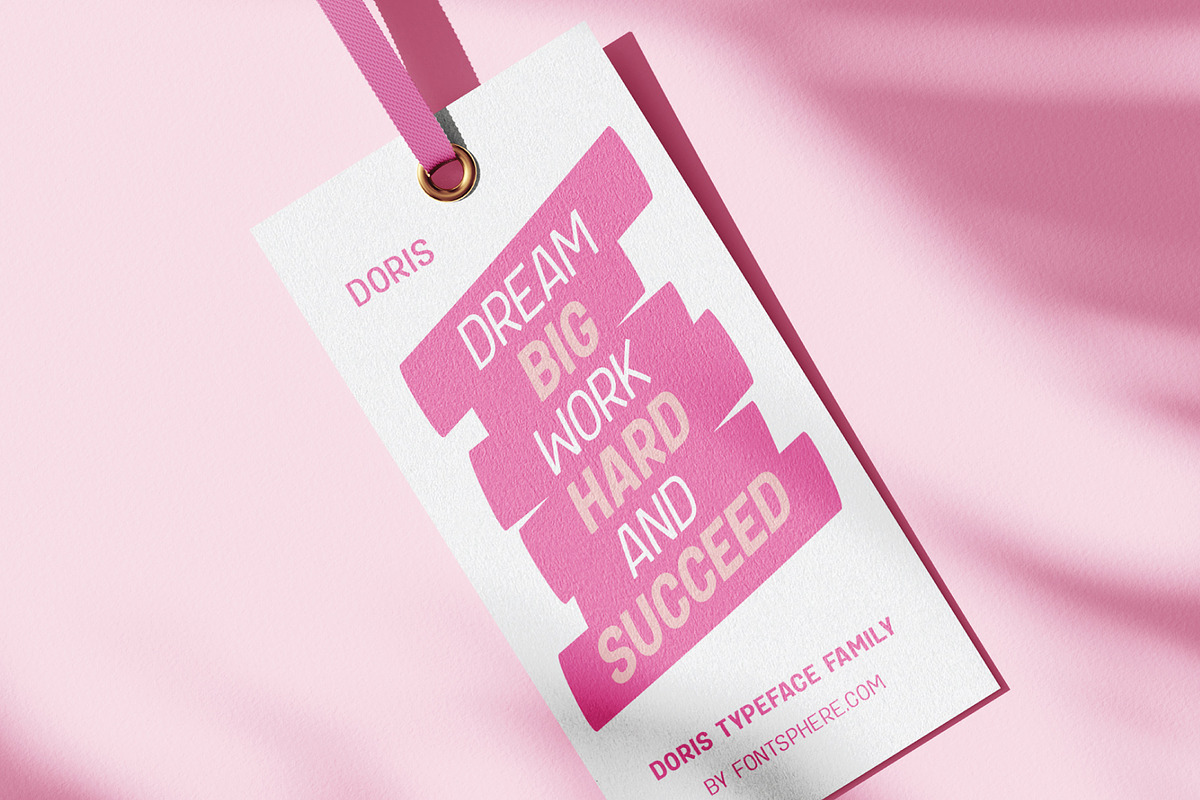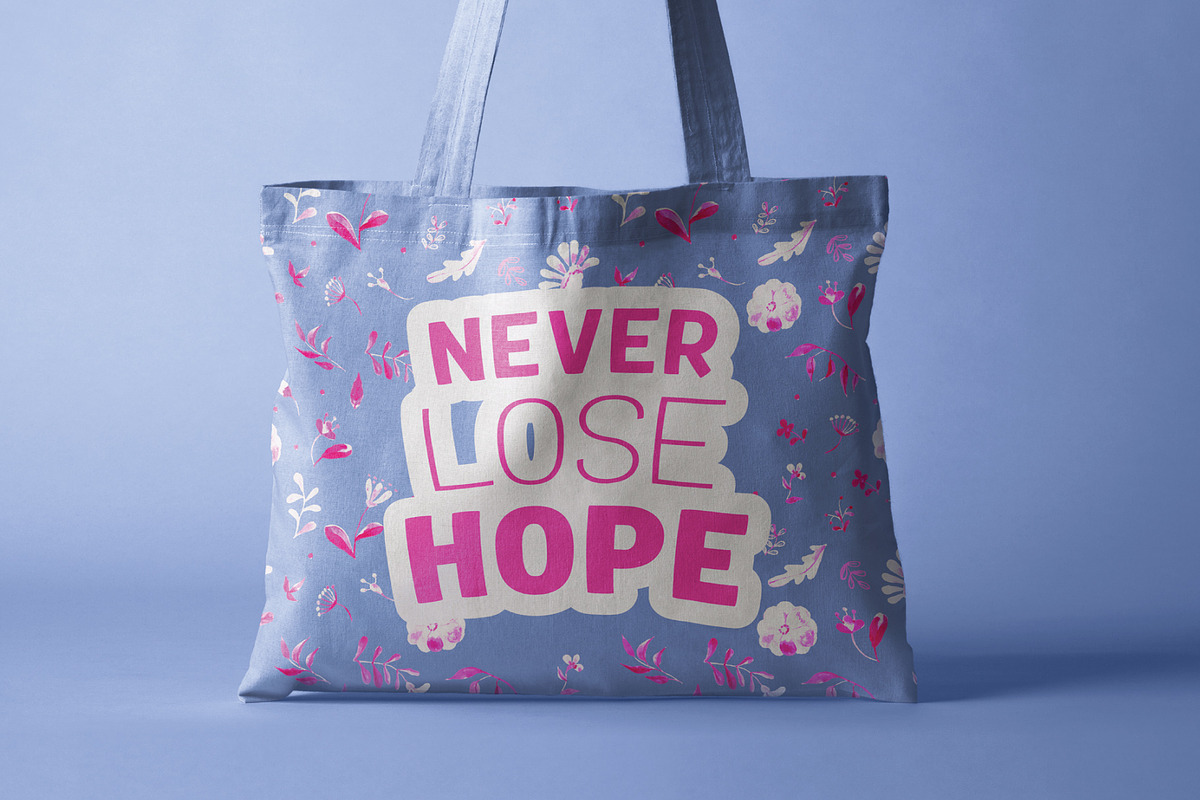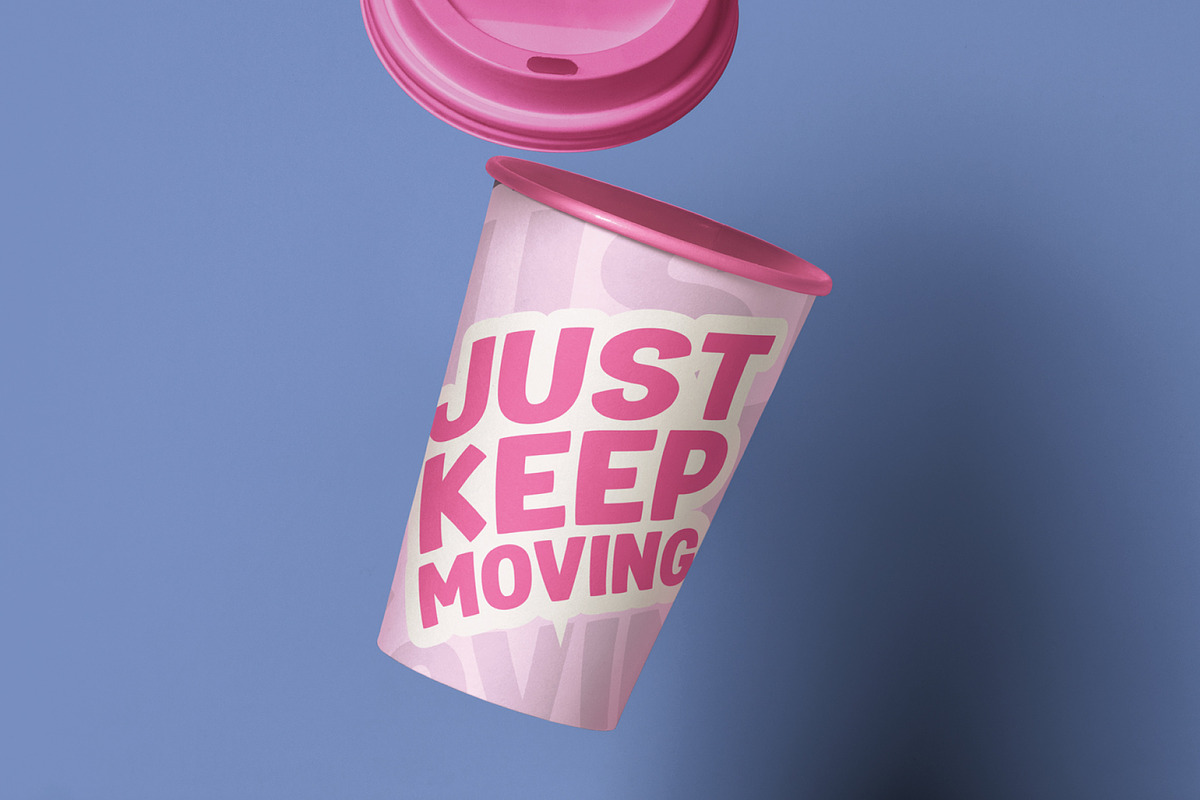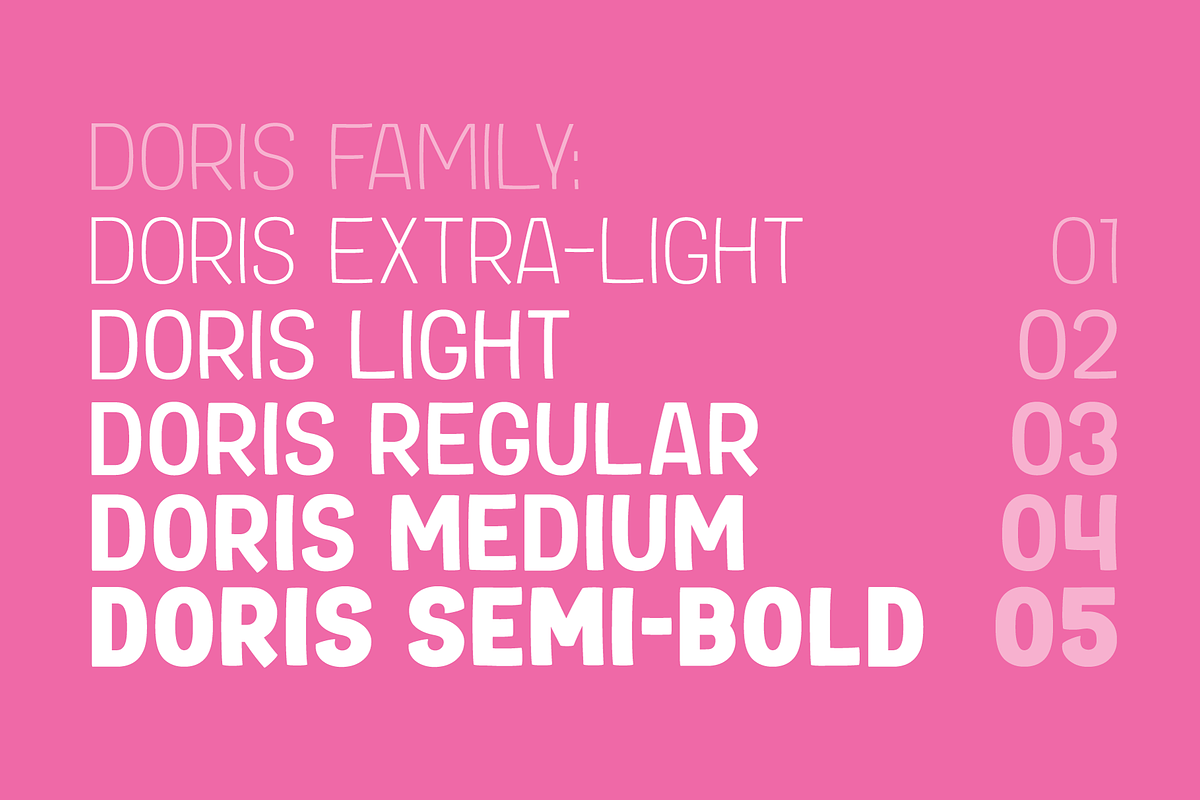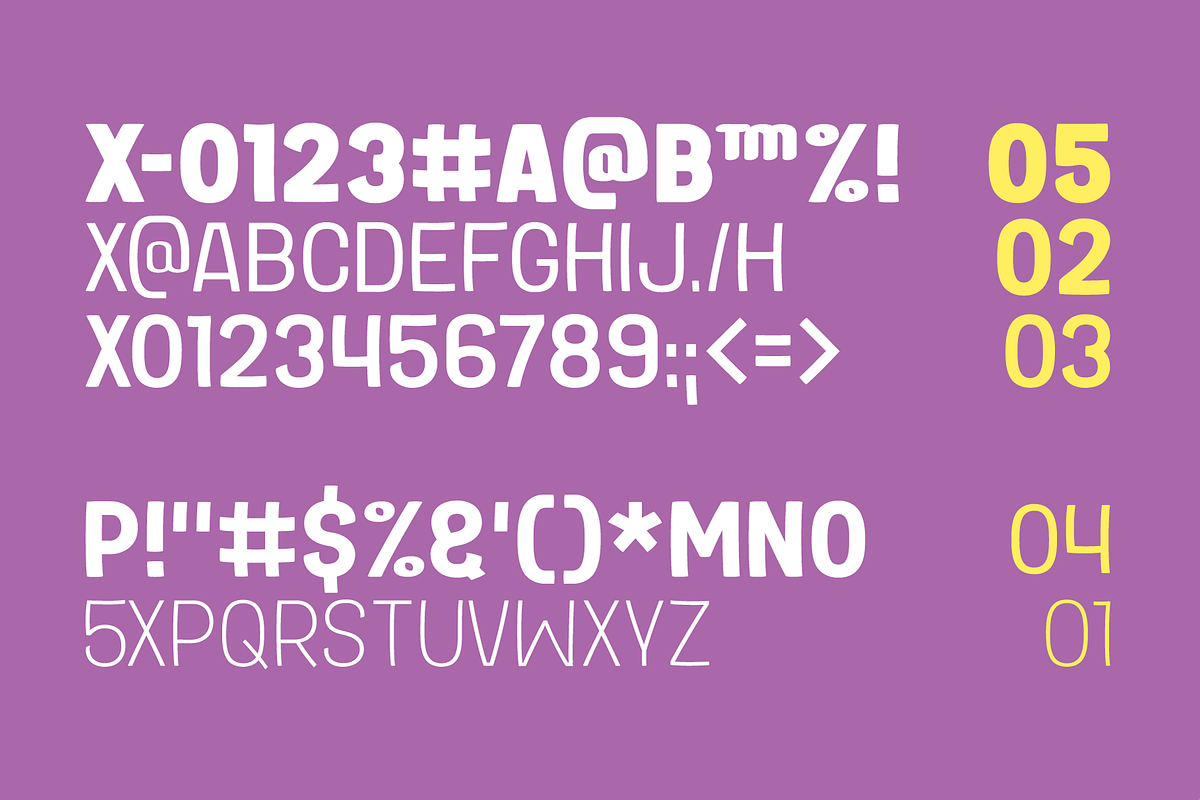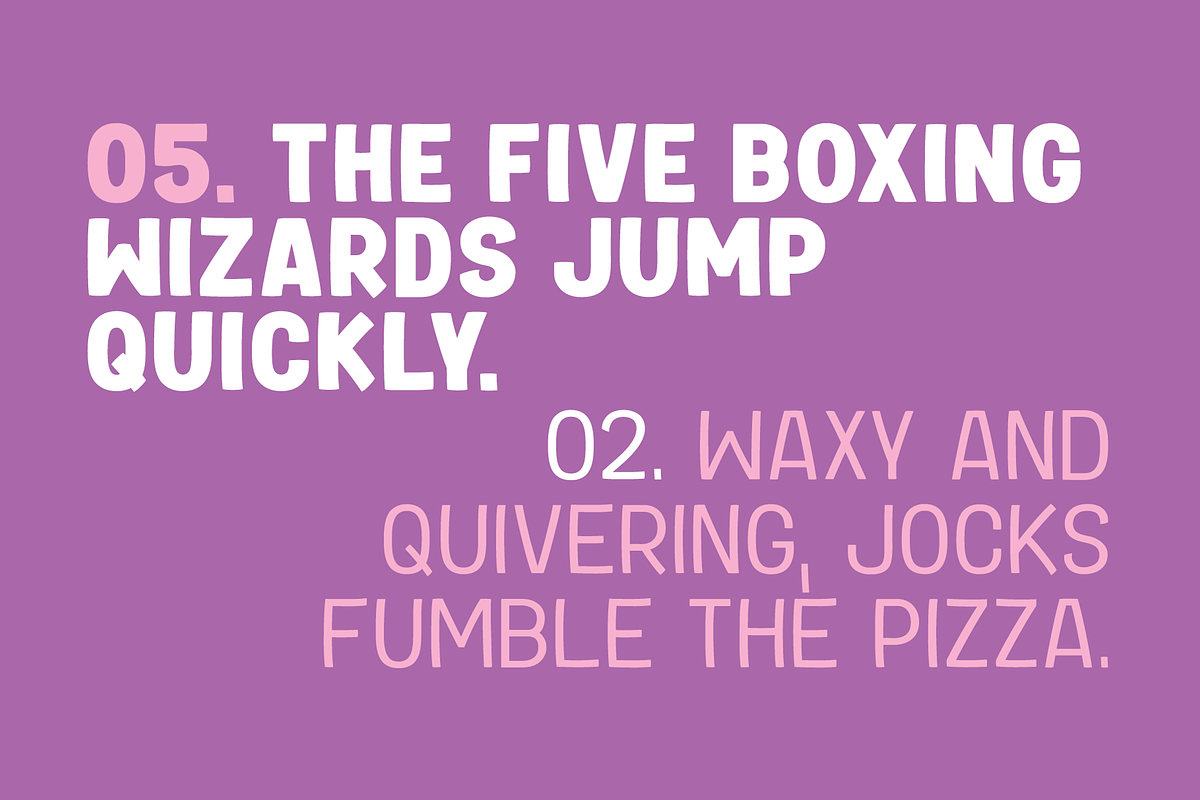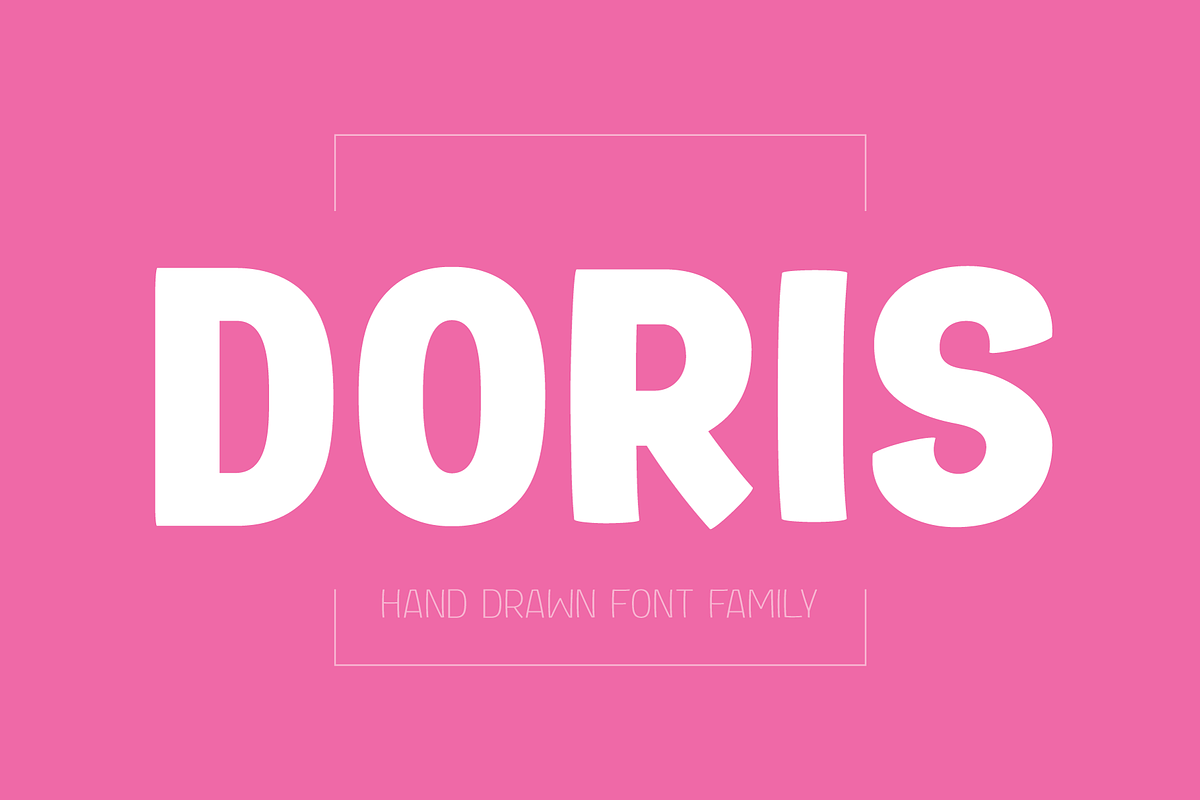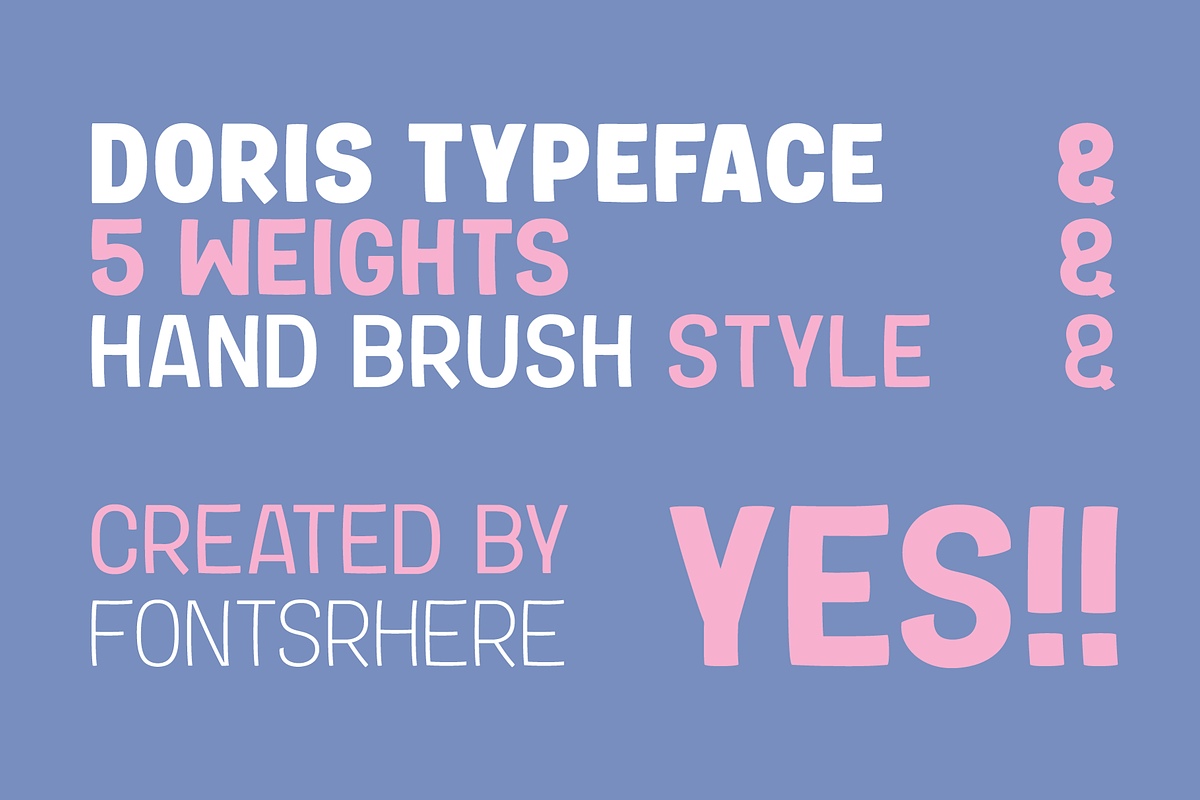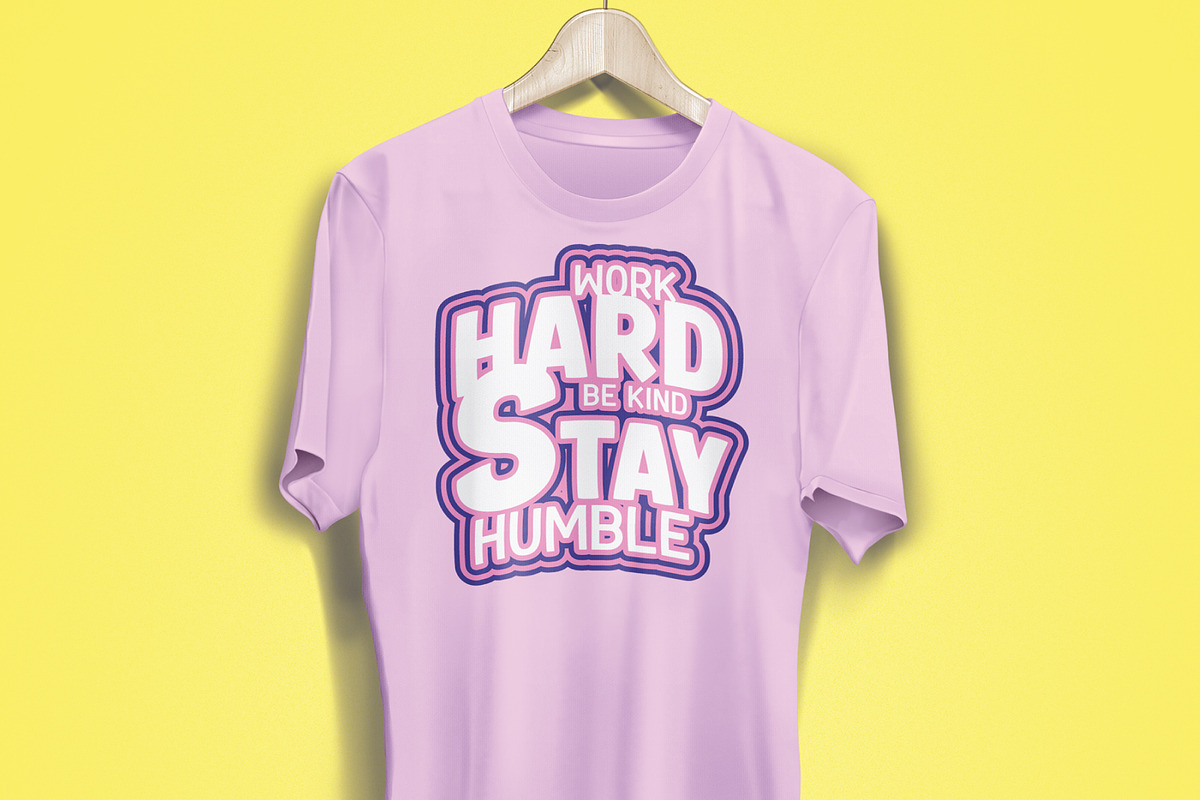
DORIS - Handwritten Font Family
Introducing DORIS: A Sweet Handwritten Font Family
DORIS is a stunning new font designed to add a touch of sweetness and charm to your designs. It was originally created for a series of children's books, then it was expanded with additional glyphs and additional thicknesses were added.
Handwritten Charm: DORIS captures the beauty and warmth of handwritten lettering, bringing a personal and intimate feel to your designs. Its imperfect lines and organic shapes radiate authenticity and evoke a sense of genuine connection.
Versatile Usage: Whether you're designing coloring books, creating beautiful illustrations, making invitations, or crafting nicely-made quotes, DORIS adapts beautifully to various applications, providing endless creative possibilities.
Feminine and Playful: With its soft curves and whimsical strokes, DORIS exudes a feminine and playful essence. It is a font that effortlessly brings a touch of joy to any design, making it perfect for creating illustrations, invitations, and other projects aimed at capturing a sense of happiness.
Multiple Thickness Options: The availability of five different thicknesses in the DORIS font family allows you to choose the perfect stroke weight for each project. Whether you need a delicate touch or a bold statement, DORIS has you covered.
Usage Recommendations:
Children's Books and Illustrations: DORIS is an excellent choice for children's books, illustrations, or any other project targeting a young audience. Its playful and friendly aesthetics will capture the hearts of kids and adults alike.
Invitations and Greeting Cards: Create stunning invitations and charming greeting cards with DORIS. Its sweet and friendly style sets the right tone for special events, celebrations, or heartfelt messages.
Nicely-Made Quotes: Give your quotes a personal and endearing touch with DORIS. Whether it's motivational quotes, lovely sayings, or inspiring messages, DORIS will add warmth and authenticity to every word.
Personal Branding: Incorporate DORIS into your personal branding materials, such as business cards, logos, or website headers, to showcase your unique personality and create a lasting impression.
Let DORIS bring a touch of sweetness and handwritten charm to your designs. With its delightful handwritten style, multiple thickness options, and endless usage possibilities, DORIS is the perfect companion for creating projects that are full of happiness and joy.